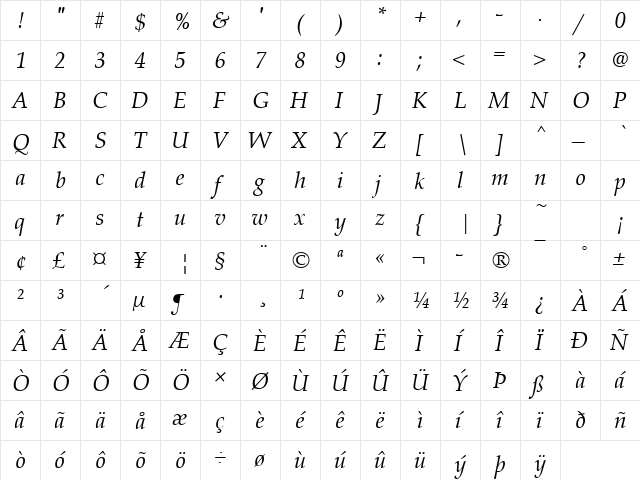
Palladius Italic
Design Context for Palladius Typeface
Palladius takes a measured approach to typography — its balanced proportions and neutral character make it a reliable workhorse for both digital and print work. The slanted form adds forward momentum and visual energy.
Pro Tip: Try Palladius for annotation and caption copy alongside an upright companion — the contrast in angle creates a dynamic but ordered typographic system.